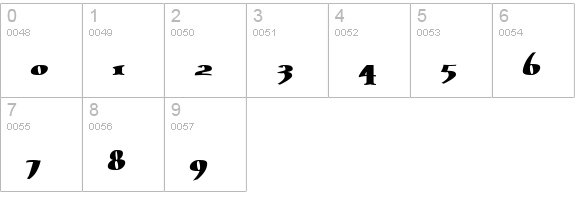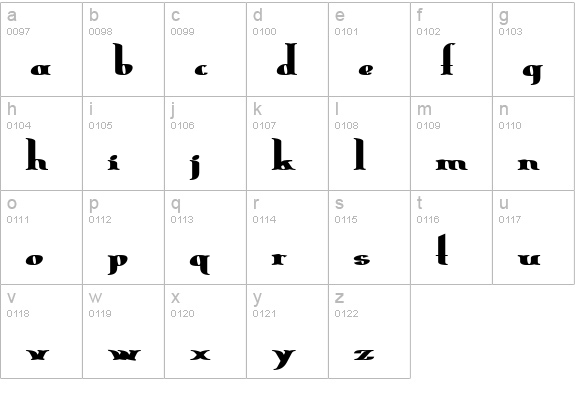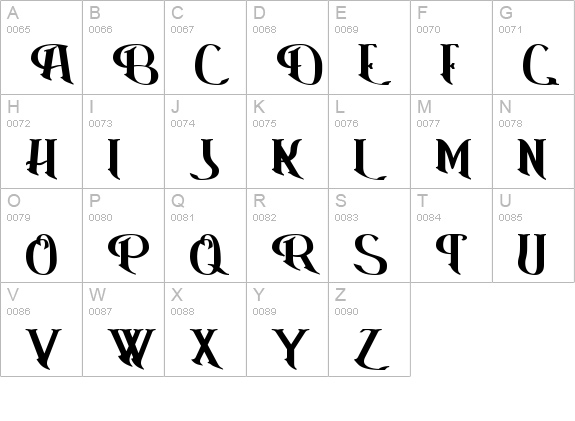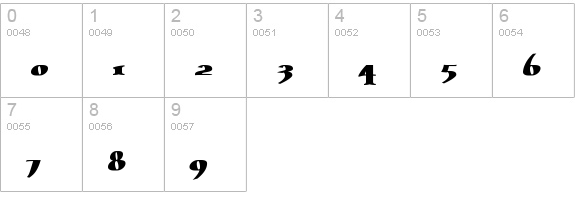
Erasmus Bold is a strong, high-contrast variant in the Erasmus typeface family \xE2\x80\x94 well suited to headlines, attention-grabbing titles, and strong calls-to-action.
Erasmus Bold is a striking and versatile font that exudes confidence and sophistication. Its bold and dynamic letterforms make it perfect for creating eye-catching designs that demand attention. The clean lines and balanced proportions of Erasmus Bold give it a timeless elegance that works well in a variety of design projects. What sets Erasmus Bold apart is that it is not only stylish and impactful, but it is also free to download. That's right, you can get your hands on this premium font without spending a penny. Simply head over to FontsMarket.com to download Erasmus Bold and start using it in your projects today. Whether you're working on a branding project, a poster design, or any other creative endeavor, Erasmus Bold is sure to elevate your work to the next level. With its bold presence and modern appeal, this font is a must-have for any designer looking to make a statement. Download Erasmus Bold now and unleash your creativity with this stunning typeface.